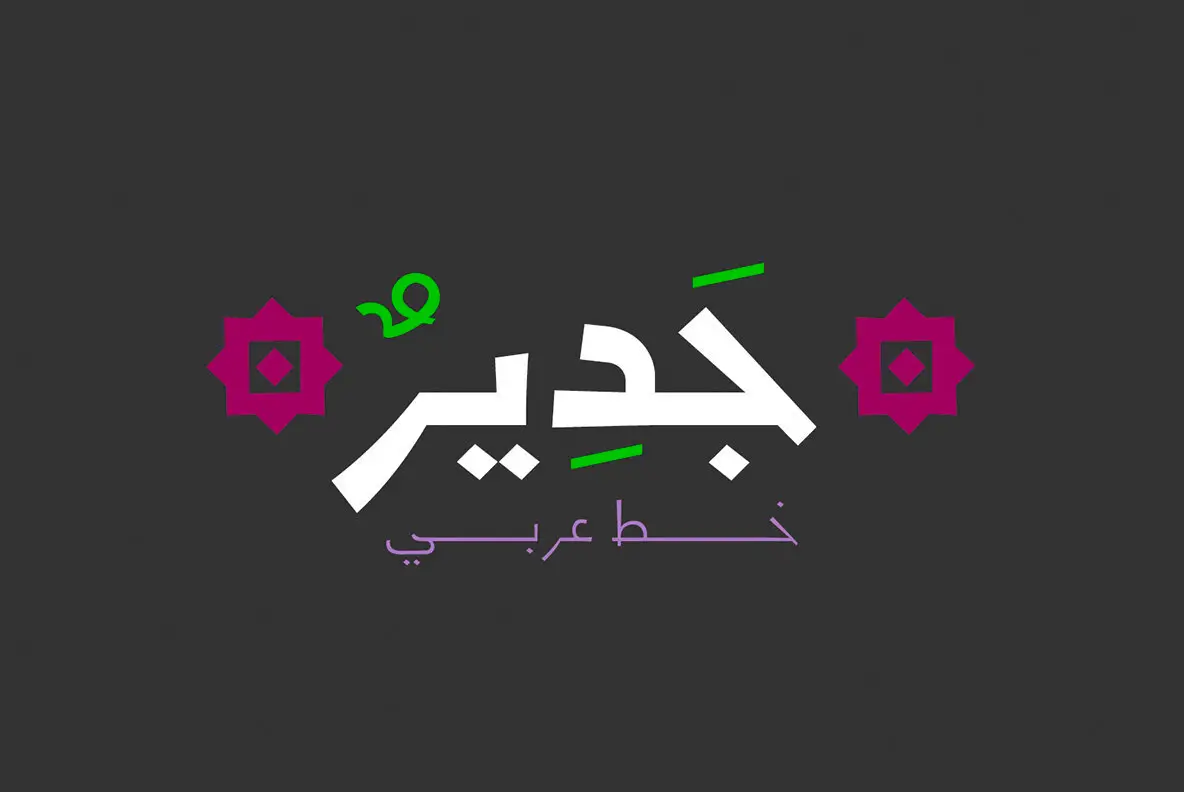
Jadeer Font
Jadeer stands out as a stylish display typeface, named for the Arabic word meaning remarkable. With a design that pairs modern forms with a relaxed, approachable character, Jadeer is well-suited for graphic designers seeking versatility and clarity in their layouts. Its sleek construction ensures readability while imparting a distinct personality, making it ideal for both digital and print projects. Its availability in Regular and Bold weights supports a range of expressive typographic treatments. Jadeer brings balance to identity systems, editorial layouts, advertising campaigns, and user interfaces. The result is a typeface that creates visual impact without sacrificing function.Jadeer: Contemporary Display Typeface With Arabic Influence